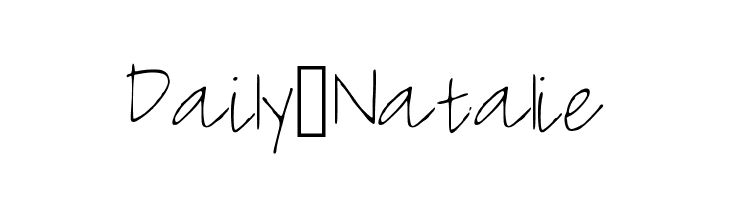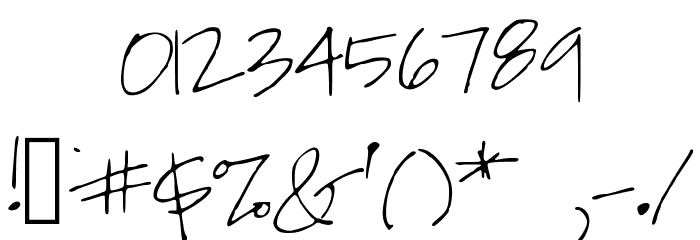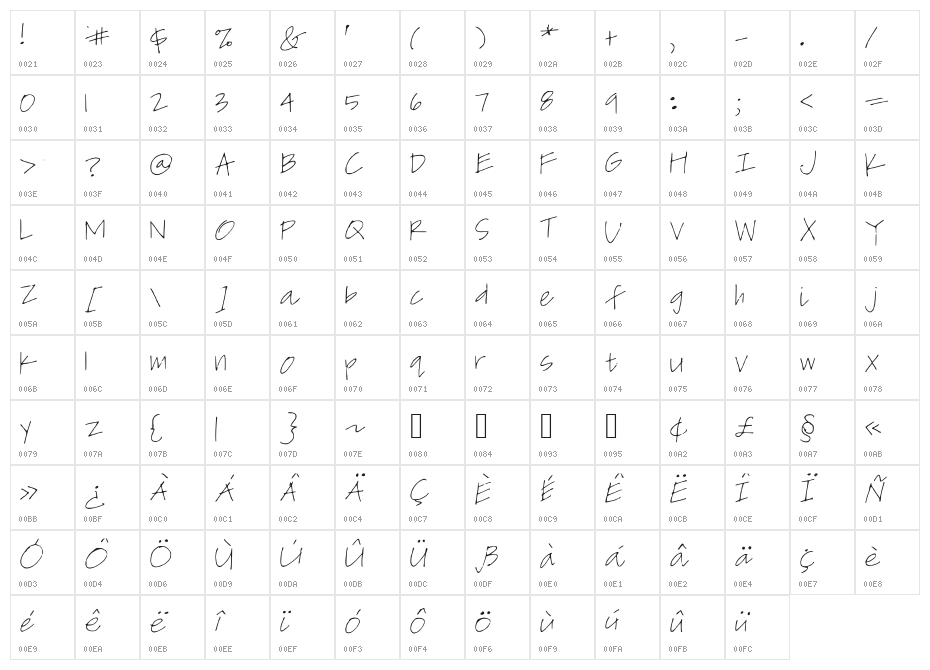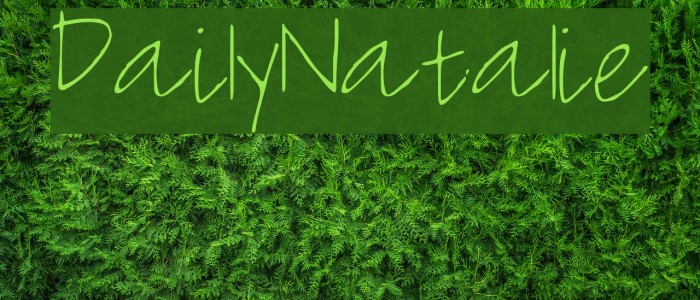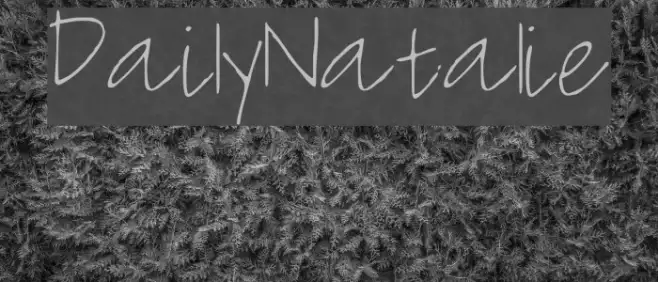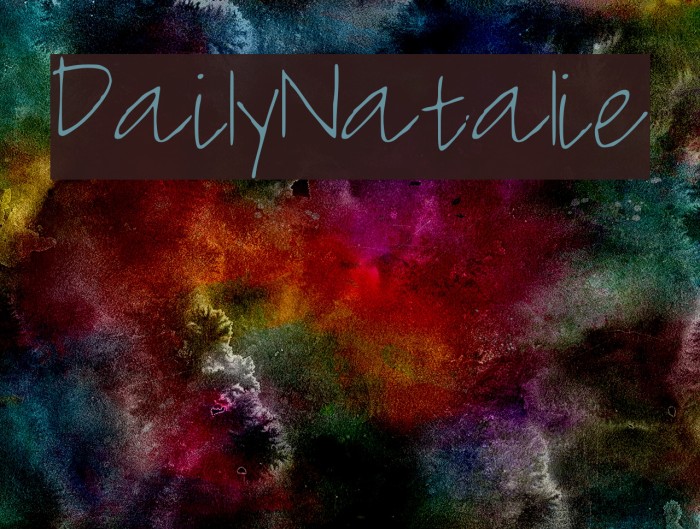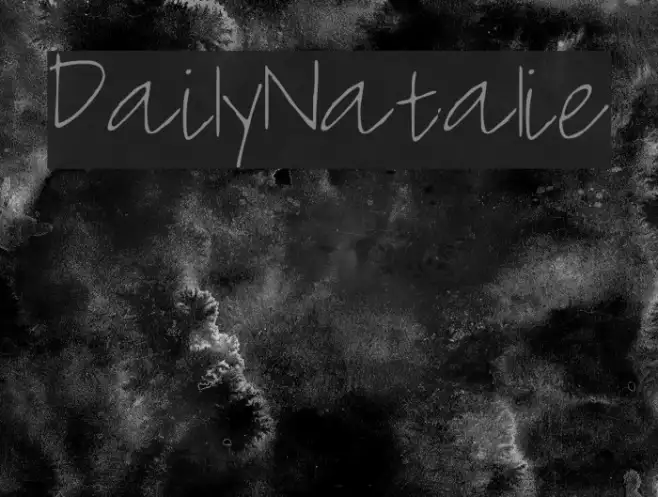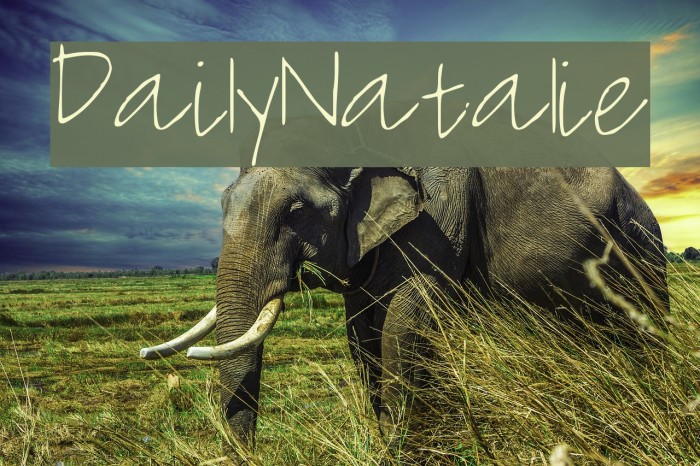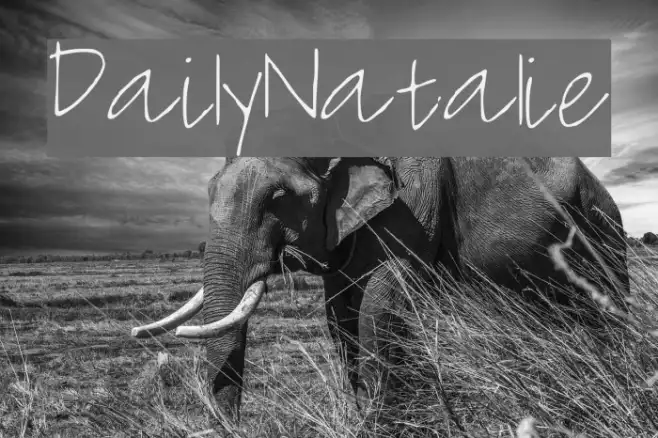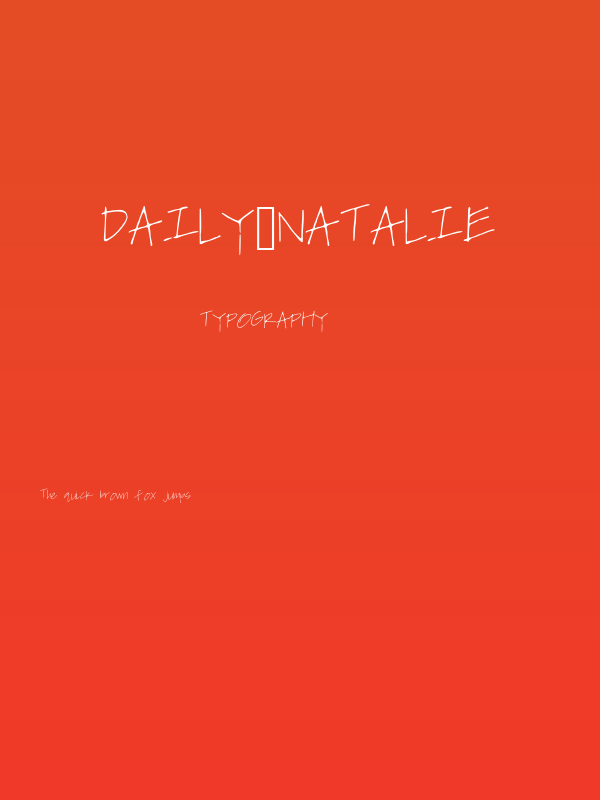
Daily_Natalie Font
Daily_Natalie Description
This font features a handwritten style with a casual and informal appearance. The letters are slightly slanted, giving a dynamic and lively feel. The strokes are uneven, mimicking the natural flow of handwriting. The uppercase and lowercase letters maintain a consistent style, with some characters having unique flourishes that add personality. The numerals are clear and match the overall aesthetic. Special characters are included, enhancing the font's versatility. This font is ideal for projects that require a personal touch or a creative flair.